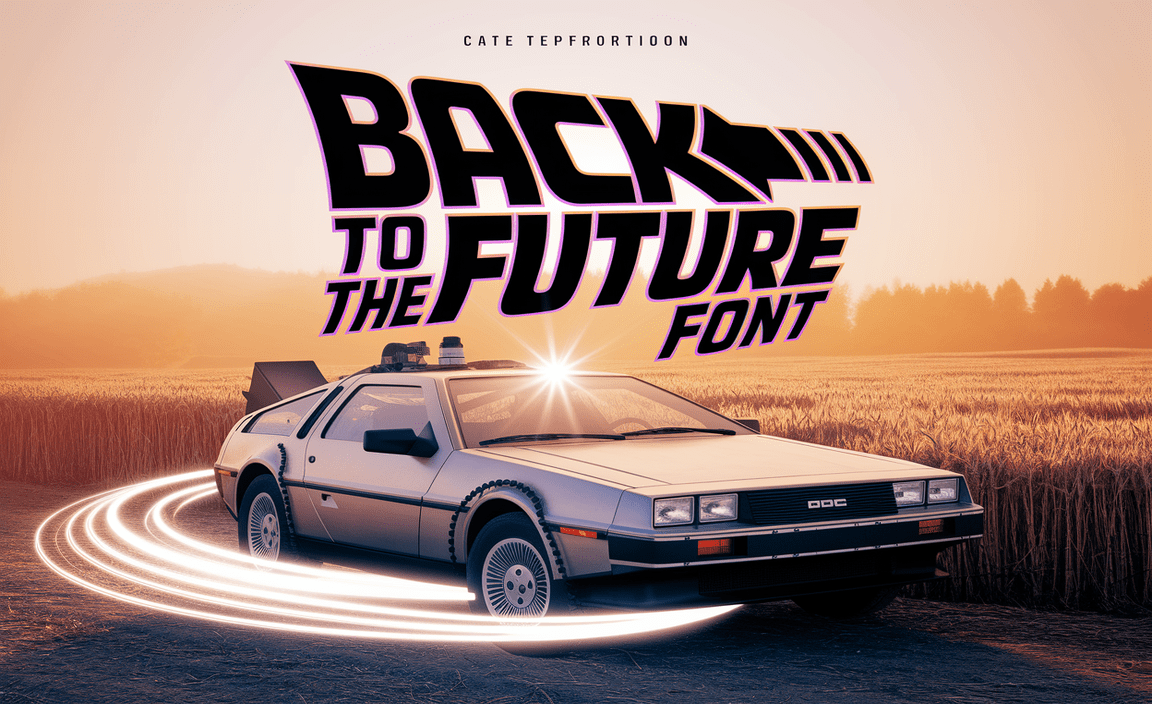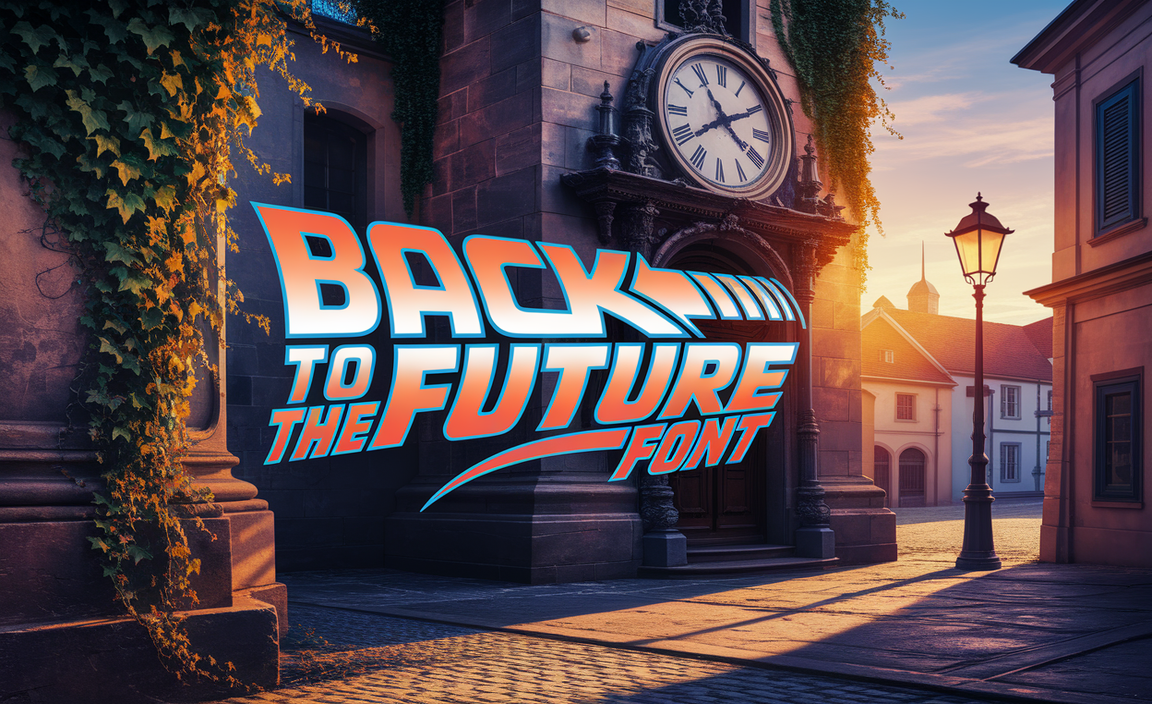
The Back to the Future Font is a decorative typeface inspired by the iconic title lettering from the Back to the Future movie series. Designed by Cyril Bourreau in 2002, this font embodies a retro-futuristic aesthetic that perfectly complements the film’s time-travel theme. Whether you’re a fan of Michael J. Fox, Christopher Lloyd, or Robert Zemeckis’ storytelling, this font serves as a nostalgic tribute to the franchise and a creative tool for modern design projects.
The Back to the Future Font offers a unique design with bold and futuristic letterforms, making it a standout option for sci-fi, retro, and pop culture projects. Available in TrueType Font (TTF) format, it also supports SVG and PNG formats for seamless integration into both digital and print materials.
The Back to the Future Font is ideal for creative projects that embrace a sci-fi, retro, or decorative theme. Common applications include:
- Logos: Great for creating logos inspired by movies, sci-fi, or retro-futuristic aesthetics.
- Posters: Perfect for bold headlines and attention-grabbing movie posters.
- Typography Projects: Adds a vintage sci-fi flair to book covers, banners, and promotional materials.
- Websites: Enhances entertainment, gaming, or pop culture-themed websites.
- Printed Materials: Ideal for flyers, brochures, and event signage related to retro themes.
Back to the Future Font Found in Use
The Back to the Future Font’s distinctive style makes it a favorite for pop culture-inspired projects. From movie-themed designs to sci-fi artwork, the font captures the essence of the 80s and continues to inspire modern creative endeavors. Its use is common in:
- Fan art
- Retro movie posters
- Nostalgic branding campaigns
- Special event graphics
The Back to the Future Font stands out as a versatile and timeless design tool, blending retro and futuristic aesthetics. Its bold and decorative character makes it ideal for sci-fi-themed designs, logos, and typography projects. Whether you’re working on banners, posters, or websites, this font offers endless creative possibilities for fans of retro-futuristic design.
What Is The Back To The Future Font, And Who Designed It?
The Back to the Future Font is a decorative typeface inspired by the iconic movie logo of the Back to the Future series. Created by Cyril Bourreau in 2002, this retro font captures the essence of the movie’s futuristic and nostalgic themes. Its regular font style and bold letterforms make it a favorite for movie font enthusiasts.
What Makes The Back To The Future Font A Unique Choice?
This retro font combines elements of a modern font with a decorative font style. Its character map includes over 10+ characters and special characters, making it versatile for graphics, logos, and text-based designs. The font’s ability to evoke nostalgia also connects it to popular culture, much like the movie itself.
How Can The Back To The Future Font Be Used In Design Projects?
The font is ideal for various creative applications, such as:
- Logos: Perfect for logo fonts in entertainment or popular culture.
- Printed Materials: Effective for posters, banners, or design projects needing bold typography.
Its connection to Michael J. Fox, Robert Zemeckis, and Steven Spielberg adds a nostalgic appeal for movie font enthusiasts.
What Characters And Features Are Included In The Back To The Future Font?
The font includes a character map with over 10+ glyphs, lower case letters, and special characters. Available in 1 style, it supports text and graphics for both digital and print use. The font’s bold font style ensures clarity and impact, especially for sci-fi or retro-themed designs.